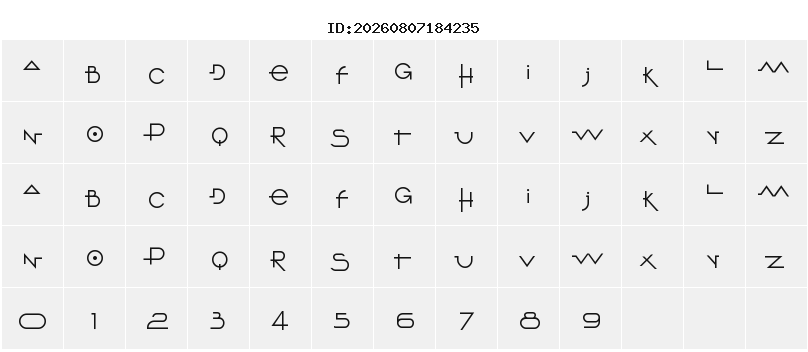
O 10 Type Preview
• Font Name: O 10 Type
• Full Font Name: O 10 Type
• Designer: © Galdino Otten. 2013. All Rights Reserved
• Manufacturer: Galdino Otten
O 10 Type.ttf is a modern, elegant sans-serif font designed for ultimate readability and visual harmony. Perfect for branding, headlines, web design, and print materials.